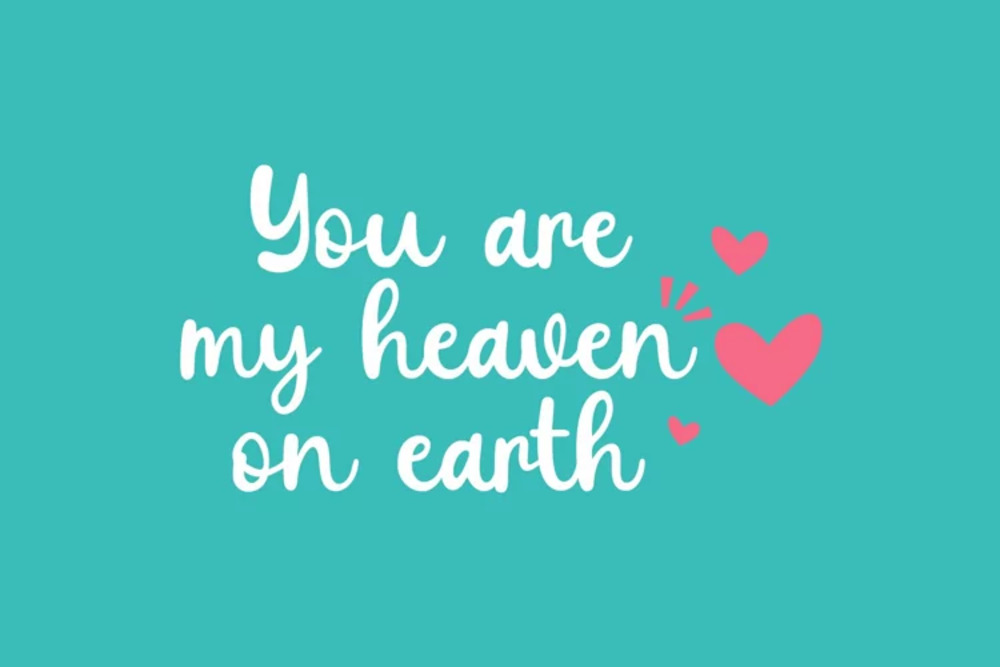
Hello Whistle Font
Hello Whistle is a whimsical and handwritten font with a friendly, approachable feel. Its playful letterforms and slightly bouncy baseline create a sense of fun and informality. Perfect for children’s books, greeting cards, casual branding, and any project that needs a touch of lighthearted charm. Hello Whistle adds a personal, handwritten touch that’s sure to bring a smile.